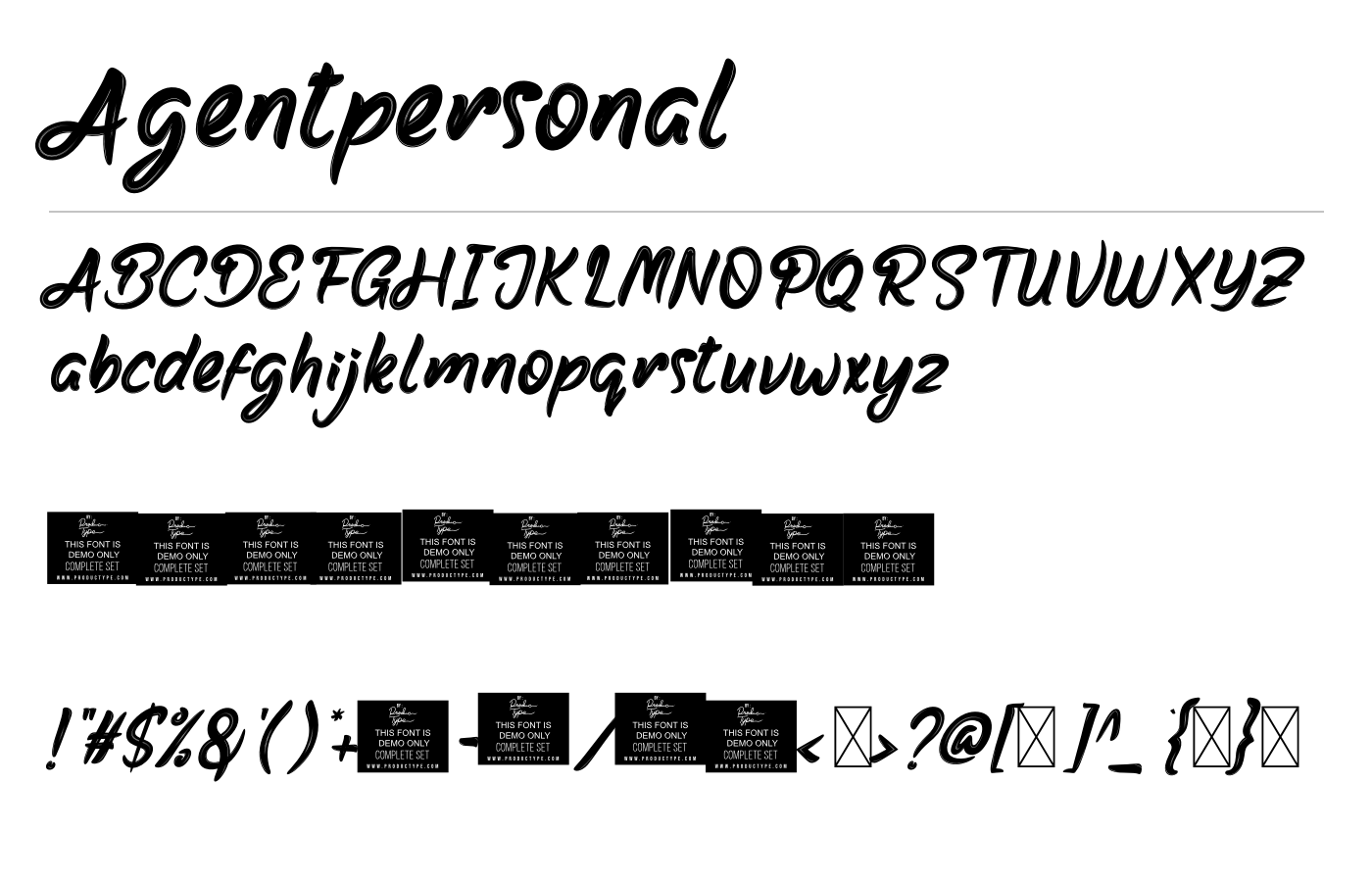
Agentpersonal is a lively script font with a friendly, hand-brushed style that features dynamic, slightly slanted characters and smooth, rounded strokes. Its medium weight and casual flair make it perfect for projects seeking a personal, approachable feel, ideal for branding, invitations, or informal headlines. This font works well where a warm, creative touch is desired, adding personality without sacrificing readability.
Agentpersonal Font
About Agentpersonal Font